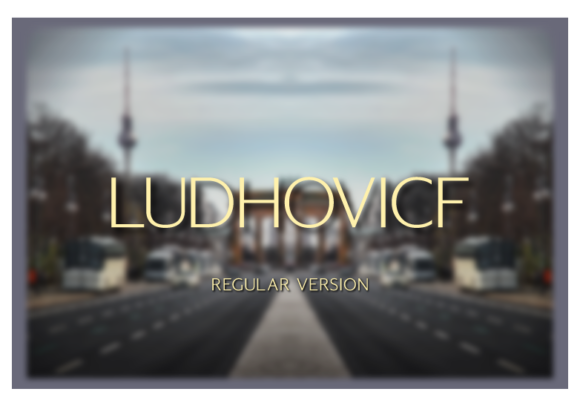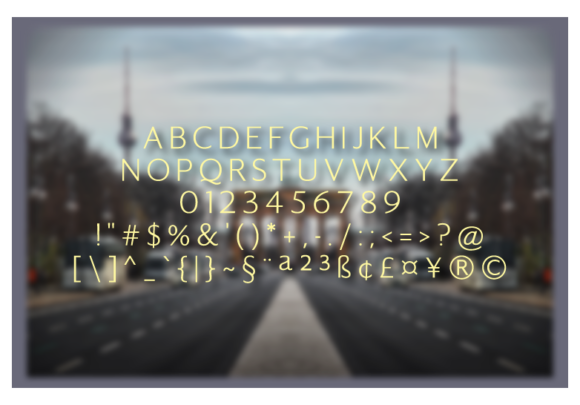
HomeSans Serif FontsLudhovicf Font Sans Serif Fonts Ludhovicf Font FacebookXPinterestWhatsApp Ludhovicf Font 1 of 2 About Ludhovicf Font Ludhovicf blends traditional Spanish architectural elements with modern, minimalist design. Its unique cut-ins & curves make it a true standout! DOWNLOAD NOW People also explored Retro Snow Font Revenger BB Flowsom Font Farmhouse Font Mayleena Font Simple Mandala Font Blooms Font Blossom Font Hypothalamus Font 283 0 TagsLudhovicf Font Previous articleLudhovicf Medium FontNext articleLudhovicf Light Font LEAVE A REPLY Cancel reply Comment: Please enter your comment! Name:* Please enter your name here Email:* You have entered an incorrect email address! Please enter your email address here Website: Save my name, email, and website in this browser for the next time I comment. Personal Use Free Huntry Personal Use Free Read more about this font Thruster Personal Use Free Read more about this font Sunshine Tropical Font Personal Use Free Read more about this font True Love Personal Use Free Read more about this font BLOG How to Cut Any Font on Cricut: Convert a Font to SVG (Free) Turn any font into a clean SVG so it cuts crisp on Cricut - a quick 3-step workflow using a free font-to-SVG tool. Top 7 Google Fonts Alternatives for Faster and Privacy-Friendly Web Design (2025) The 10 Best Handwriting Fonts to Add Personality to Your Designs 5 Fonts That Will Dominate Design Trends in 2026